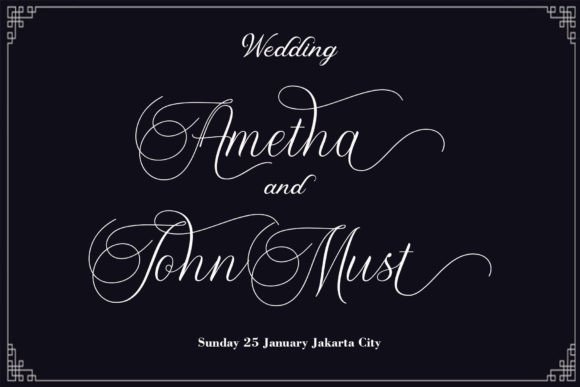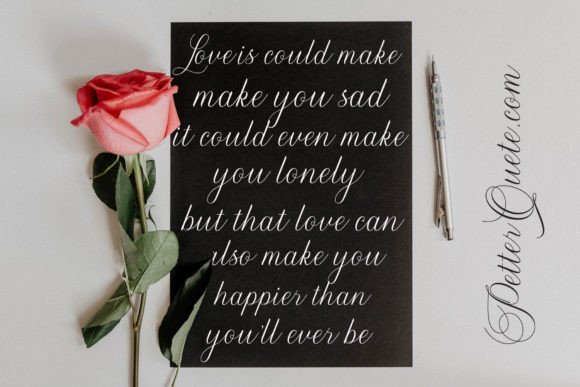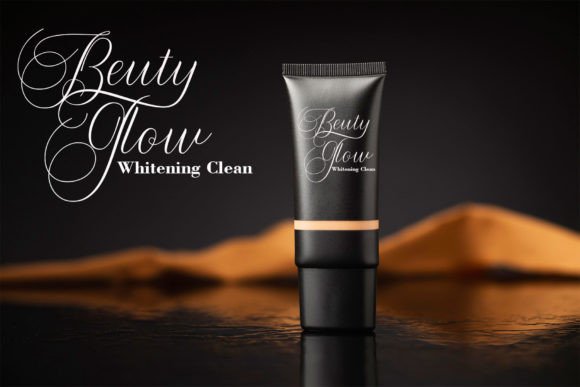
Introduction to Maydent Font
As a designer, have you ever been working on a creative project and wished you had the perfect font to bring your vision to life? You know, that one font that just makes everything pop? For me, that font is often the Maydent Font – a dazzling script font that never fails to elevate my designs.
With its neatly crafted and highly detailed design, the Maydent Font is a valuable asset to any font library. Whether you’re working on a free download or a high-quality design project, this font has the potential to take your creation to the next level. Plus, with its PUA encoded features, you can easily access all glyphs and swashes, giving you even more creative freedom.
Key Features of Maydent Font
- Unique, hand-drawn design with a transparent background
- Perfect for use in graphic design, digital art, and typography
Honest Review: Maydent Font
I recently had the chance to work with the Maydent Font, and I must say it’s been a game-changer for my creative projects. The moment I downloaded it for free, I knew I was in for a treat.
One of the things that stood out to me about the Maydent Font is its high quality and versatility. The font comes with a transparent background, making it super easy to incorporate into any design.
Here are some things that work well about the Maydent Font:
- ✨ Easy to customize and manipulate
- ✨ Works well with a transparent background
- ⚠️ Limited font styles and weights (although this is still a great starting point)
Overall, I’m thoroughly impressed with the Maydent Font. It’s a fantastic design resource that’s perfect for creative projects, and its free download makes it an excellent starting point for designers. If you’re looking for a high-quality font to add some flair to your designs, I highly recommend giving the Maydent Font a try.
Customizing the Maydent Font
The Maydent Font has a transparent background, making it perfect for creative projects that require a high-quality, versatile font. You can customize the font by adjusting its size, color, and style to fit your design needs.
Common Use Cases for the Maydent Font
The Maydent Font is perfect for a variety of creative projects, including:
- Graphic design projects, such as logos and brochures.
- Digital design projects, such as websites and social media graphics.
- Print design projects, such as business cards and posters.